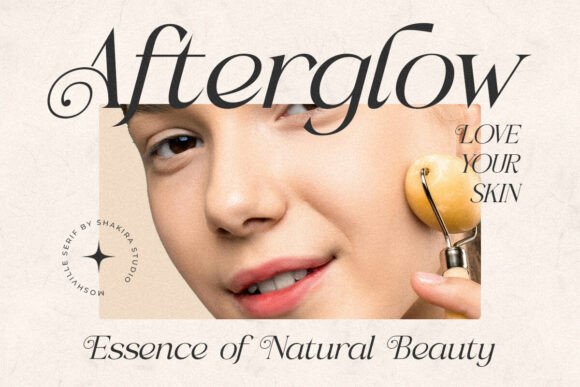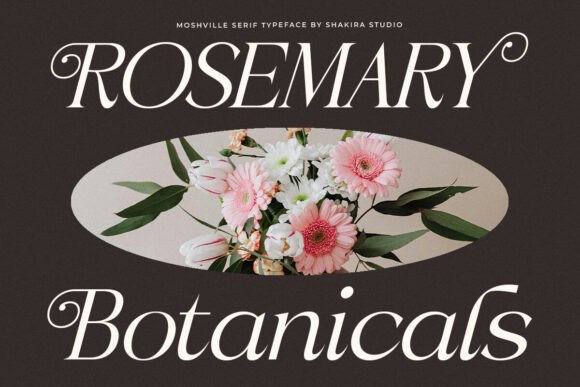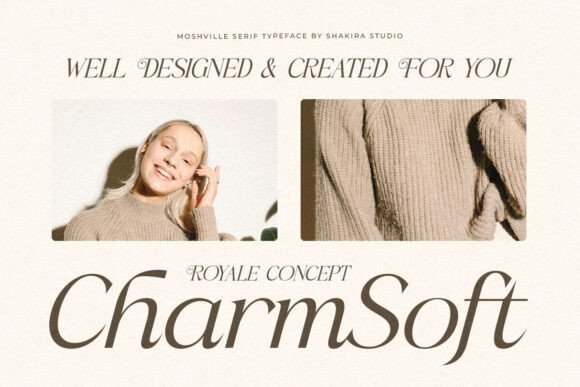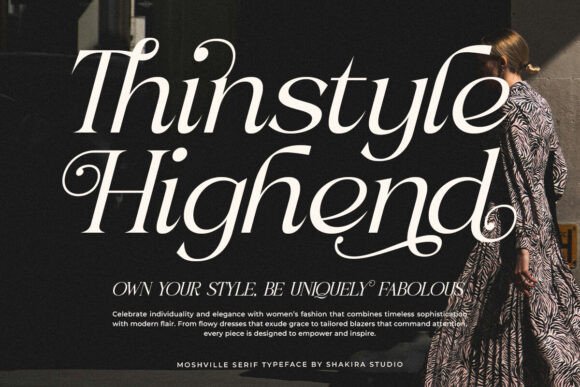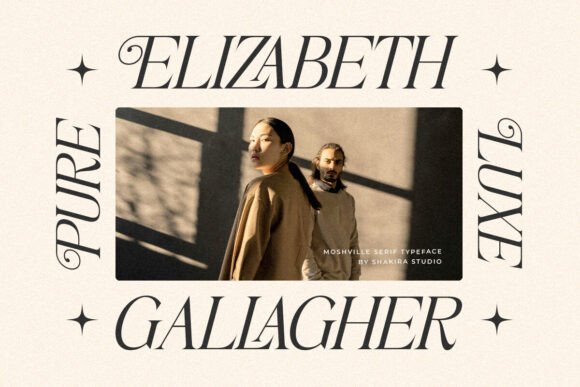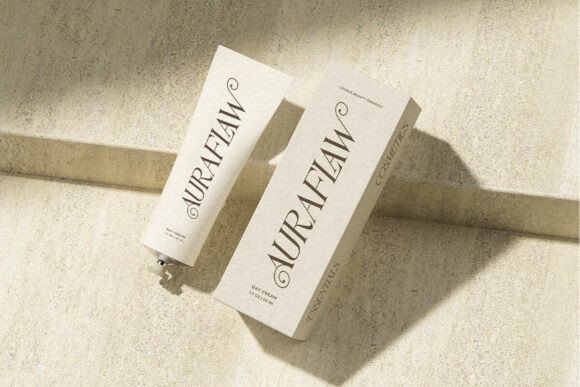
Introduction to Moshville Font
Have you ever found yourself stuck on a creative project, struggling to convey the perfect tone and aesthetic? I know I have. It’s those moments when you’re searching for the perfect design resource that sets your project apart from the rest. One such moment led me to discover the Moshville Font, a stylish and classy serif typeface that has since become my go-to for high-quality designs.
What makes Moshville Font so valuable for designers is its incredible flexibility. With alternates and ligatures at your disposal, you can create a wide range of styles and moods that perfectly complement your brand or creative vision. Whether you’re working on a luxury packaging project or a high-end print design, Moshville Font is sure to deliver a polished and professional look.
Key Features of Moshville Font
- High-quality design resource perfect for creative projects, including music and event branding.
- Features a transparent background, making it easy to customize and layer over other design elements.
- Designed with a unique, energetic feel, ideal for use in event branding, music festival promotions, and other creative projects.
- Perfect for designers seeking a bold, eye-catching font to elevate their designs and leave a lasting impression.
Honest Review: Moshville Font
I recently had the chance to try out the Moshville Font, a design resource that’s been gaining popularity in the creative community. Overall, I was quite impressed with what it has to offer.
What works well is the high quality of the font itself. The bold lines and clean design make it perfect for creating eye-catching titles and headings. The font is also available for free download, which is always a bonus. Additionally, the transparent background makes it easy to layer over other design elements.
- Perfect for creating bold, eye-catching titles and headings
However, there are a few limitations to consider. The font only comes in one style, which may limit its versatility for more complex design projects. Additionally, the font may not be suitable for body text, as it can be quite difficult to read in smaller sizes.
Overall, I’d say the Moshville Font is a great addition to any designer’s toolkit. While it may have some limitations, its high-quality design and free download make it a valuable resource for any creative project.
Tips for Getting the Most Out of Moshville Font
Experiment with different font sizes and styles to create a visually appealing design. Use the Moshville Font in combination with other design elements to create a cohesive look. Take advantage of the free download to use the font in multiple projects.
The Moshville Font is perfect for creating eye-catching titles, headings, and body text for creative projects such as posters, flyers, and brochures. Its high-quality design makes it suitable for both digital and print materials.